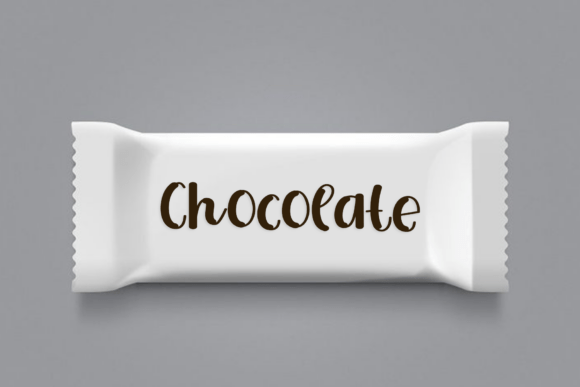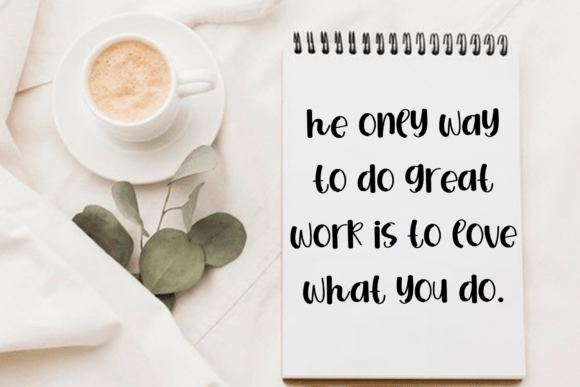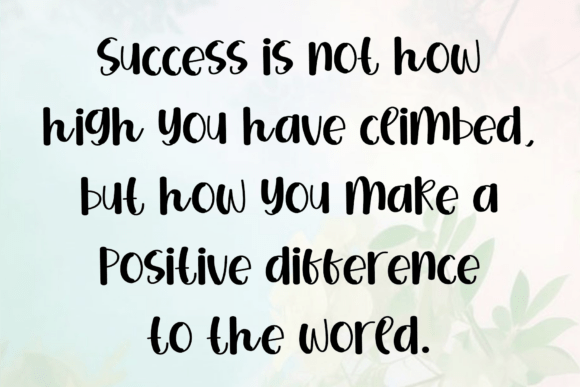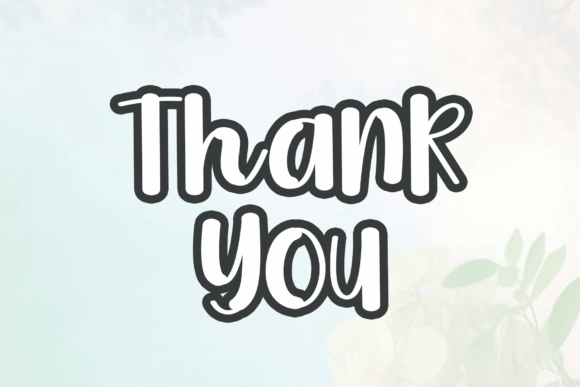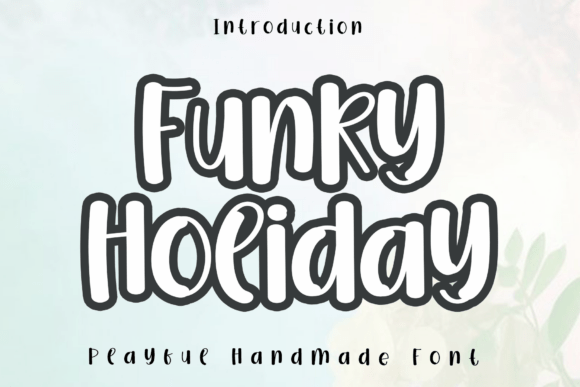
The Funky Holiday Font: A Playful and Cheerful Companion for Your Creative Projects
Ah, the elusive perfect font. You know, that one font that makes your design project go from meh to mesmerizing. I’ve been there, done that, and got the t-shirt (which, by the way, was probably designed with a font that wasn’t quite right). But today, I’m excited to share with you a font that has become a new favorite of mine: Funky Holiday.
A Design Moment of Frustration and Delight
I was working on a children’s book project, and I needed a font that was playful, yet clear and easy to read. I scoured the internet, tried out dozens of fonts, but nothing seemed quite right. That was until I stumbled upon Funky Holiday. Its charmingly uneven, monoline weight and clean vertical structure immediately caught my eye. It was like the font was saying, “Hey, I’m here to help you make your project fun and engaging!”
- ✨ Playful and unique personality that’s perfect for children’s books, custom stationery, and social media quotes
- ✅ Clean and clear vertical structure that makes it easy to read
- ✅ Monoline weight that gives it a friendly, approachable feel
- ✨ Highly versatile and can be used for a wide range of creative projects
- ⚠️ Some users may find the font’s unevenness a bit distracting at first
- 🤔 Limited availability of certain OpenType features (but more on that later)
The Backstory Behind Funky Holiday
Funky Holiday was designed with one goal in mind: to create a font that’s both playful and clear. The designer, [designer’s name], drew inspiration from classic children’s books and playful typography. The result is a font that’s equal parts fun and functional.
| Author | Black line |
Q: Is Funky Holiday suitable for body text?
A: While Funky Holiday is a beautiful font, it’s best suited for headings, titles, and short paragraphs. Its playful nature may not be ideal for long blocks of body text.
Q: Does Funky Holiday come with any OpenType features?
A: Yes, Funky Holiday includes a range of OpenType features, such as glyphs and stylistic alternates. These can be accessed through the font’s OpenType menu in compatible applications.